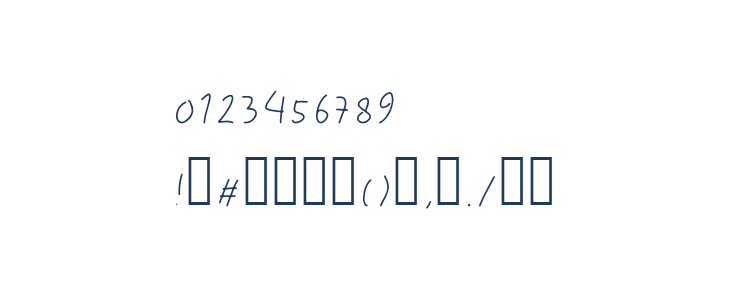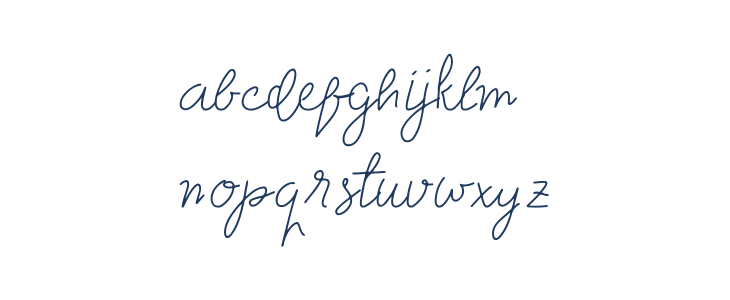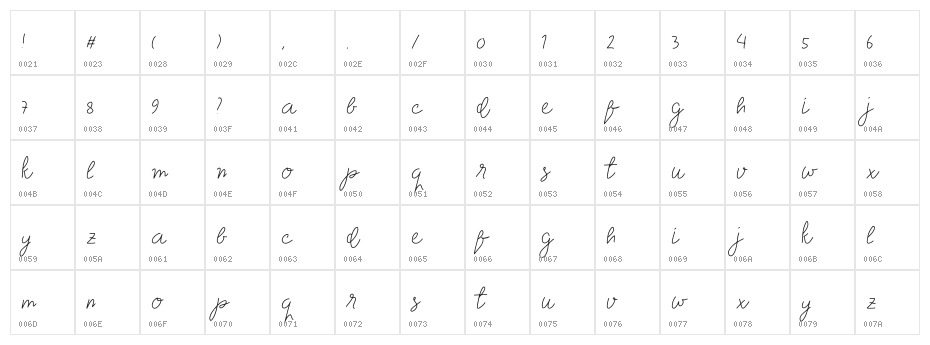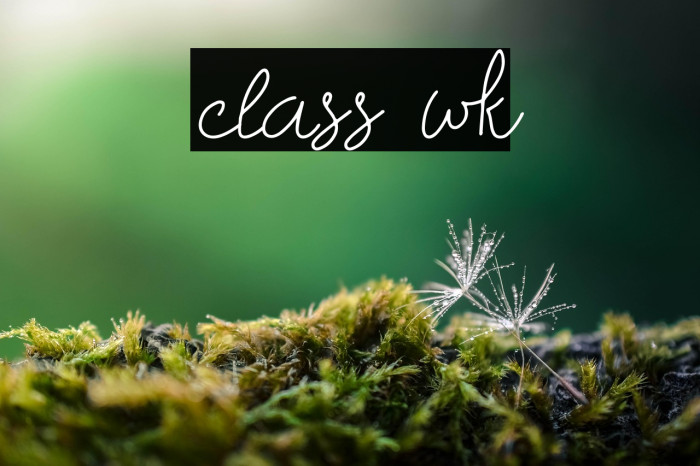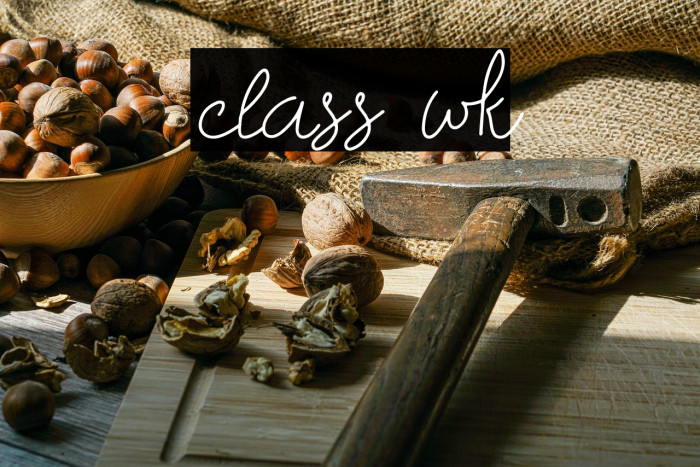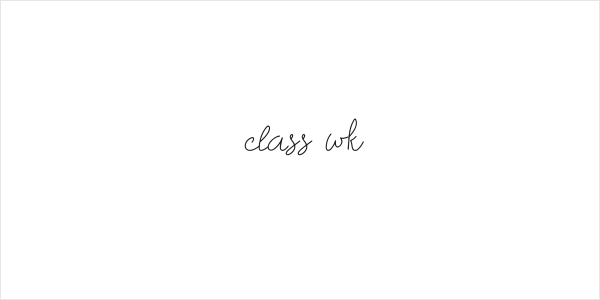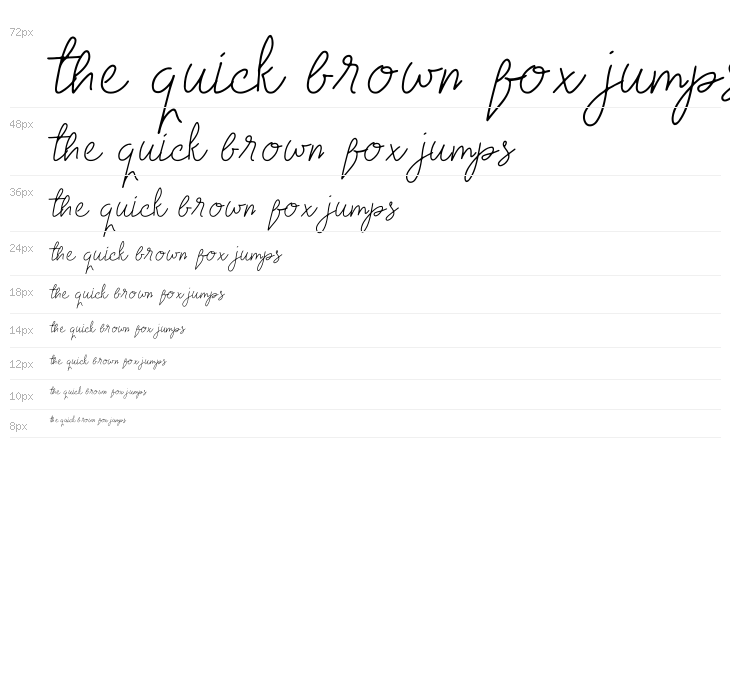
class wk Font
class wk Description
A delicate, handwritten script font with smooth, flowing strokes and a casual, personal feel. The characters are slightly slanted with consistent stroke weight, featuring rounded terminals and moderate spacing.
| Overall Style | Casual, Personal |
| Use Case | Invitations, Greeting cards, Personal branding, Informal text |
| Proposed Projects | Personal notes, invitations, greeting cards, branding for creative or feminine products, and informal communication. |